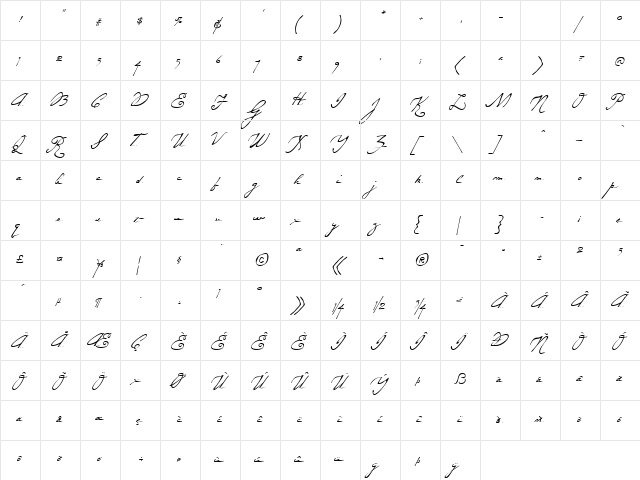
SU Woodward Script Regular
Design Context for SU Woodward Script Typeface
SU Woodward Script echoes the hand-painted signage and woodblock typography of the American frontier, with a warm, rugged personality.
A natural fit for craft spirits, ranch branding, rodeo events, and Americana-inspired design work.
Font Pairing: Combine SU Woodward Script with a simple slab or neutral sans — period-accurate companions reinforce the vintage feel without competing for attention.
Pro Tip: Use SU Woodward Script for short, impactful bursts of text — it shines in poster headlines and product names rather than extended copy.